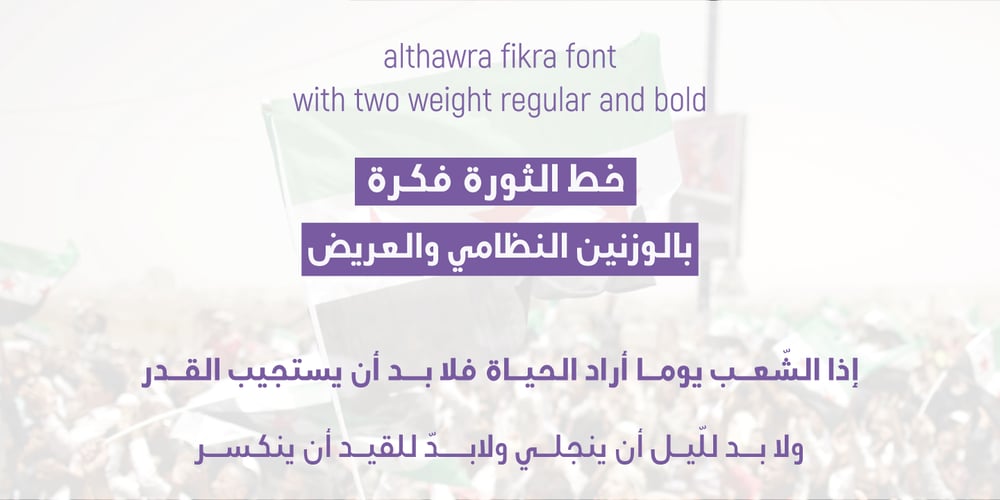
Althawra Fikra
Althawra Fikra font
Althawra Fikra Font Family was designed by Mohammad Alhaj Ahmad and published by syria arabic. Althawra Fikra contains 2 styles and family package options. This is an Arabic font designed according at the standards of Calligraphy. It contains a consistent styling and can be used in many functions.